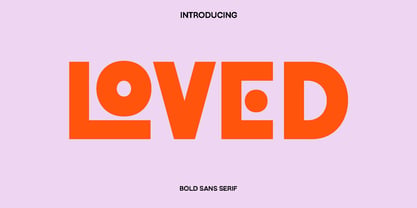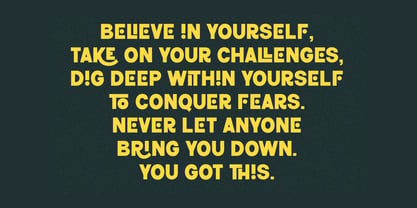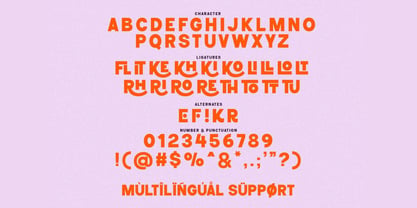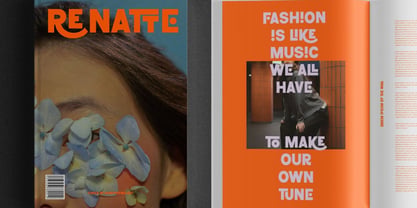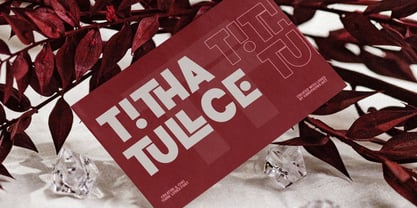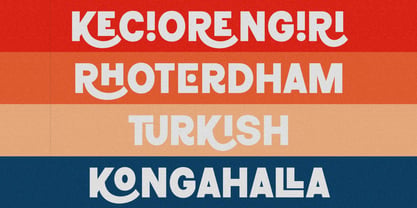
Loved
by Only Fonts
The Loved Font Family was designed by Olivia Love and published by Only Fonts. Loved contains 1 styles. More about this family
Loved is a graceful, modern script crafted to capture warmth, romance, and polish in every stroke, blending hand lettered charm with contemporary clarity for standout headlines and confident branding. Its flowing curves, balanced contrast, and inviting rhythm give designs an emotional lift while staying readable across print and digital layouts. The personality leans elegant and human, making it feel intimate for storytelling while still professional for brand systems and campaigns.​ Where Loved shines Editorial elegance for book covers, chapter titles, and magazine features that need a refined, emotive voice.​ Distinctive brand marks and logos that prioritize memorability and a premium, crafted feel.​ Photography overlays, quotes, blog headers, posters, packaging, and advertising where a romantic yet clear statement is essential.​ Standout features Complete Latin set with uppercase, lowercase, numerals, and punctuation for versatile composition.​ Functional, legible forms designed to hold up from small subheads to bold hero typography.​ Multilingual support to reach broader audiences with consistent voice.​ Stylistic alternates and ligatures for expressive customization and signature-worthy wordmarks.​ OpenType features that unlock swashes, alternates, and refined detailing in professional workflows. ​ Design notes Pair Loved’s expressive forms with a clean sans serif for body copy to enhance contrast and readability.​ Use hierarchy and whitespace to let its curves breathe, ensuring headlines lead while supporting text remains clear.​ Keep usage focused in titles, logos, and short editorial lines for maximum impact without sacrificing legibility.
Designers: Olivia Love
Current Foundry: Only Fonts